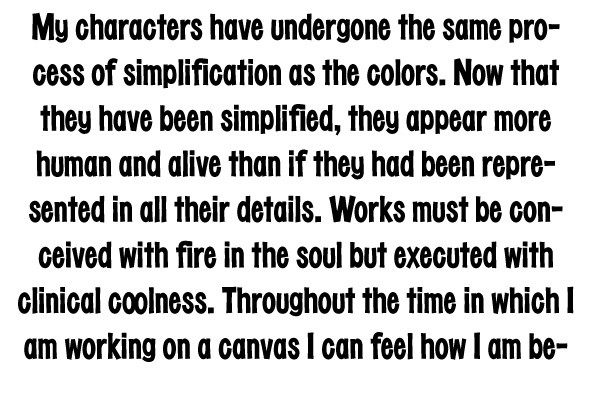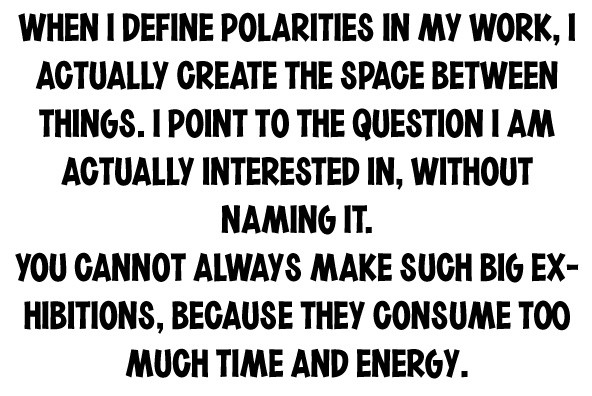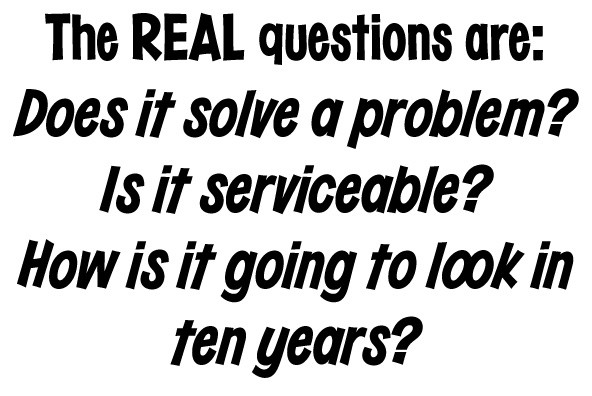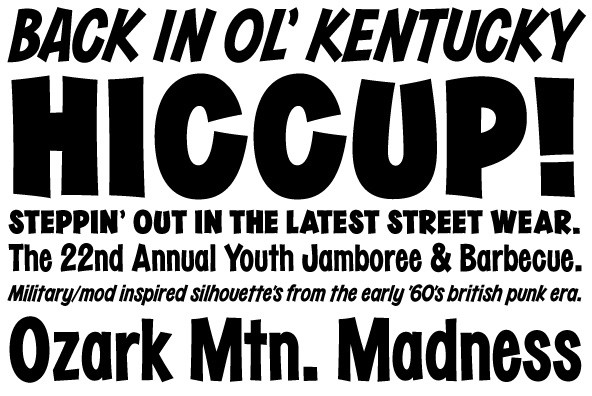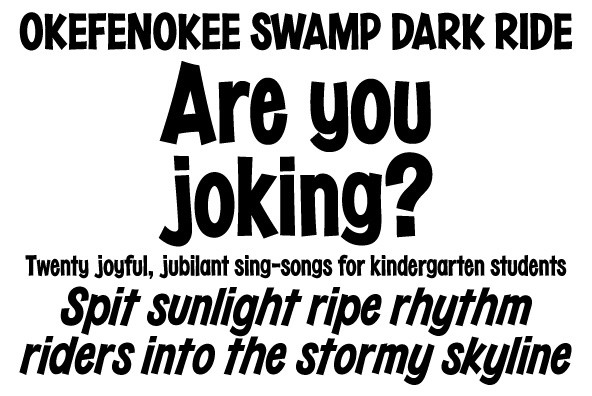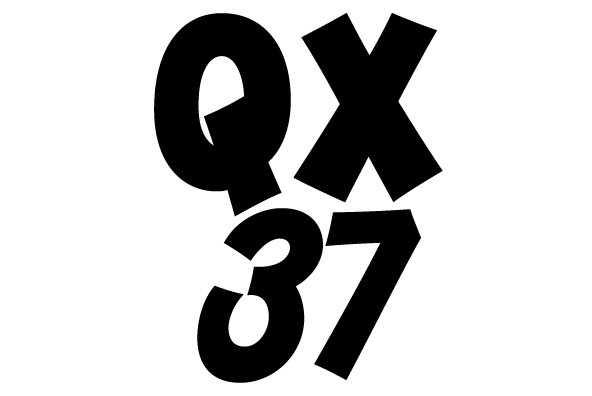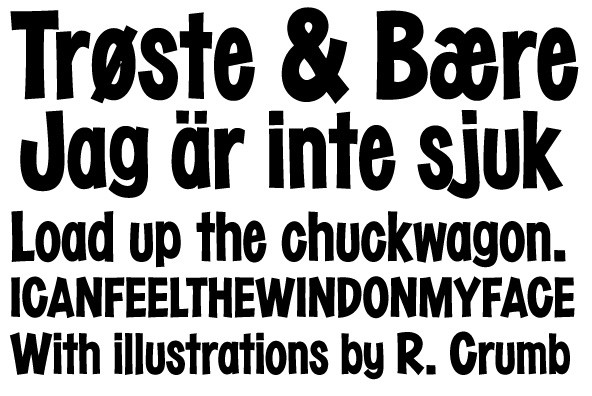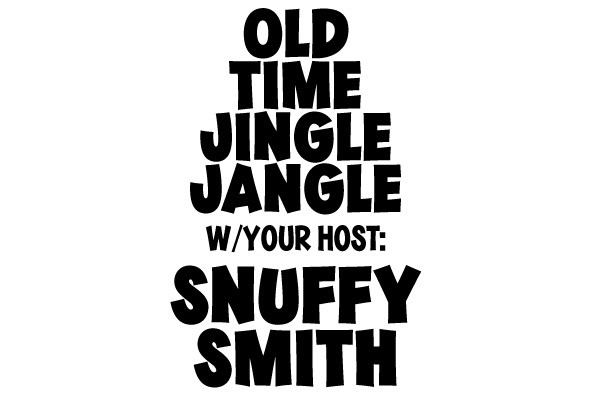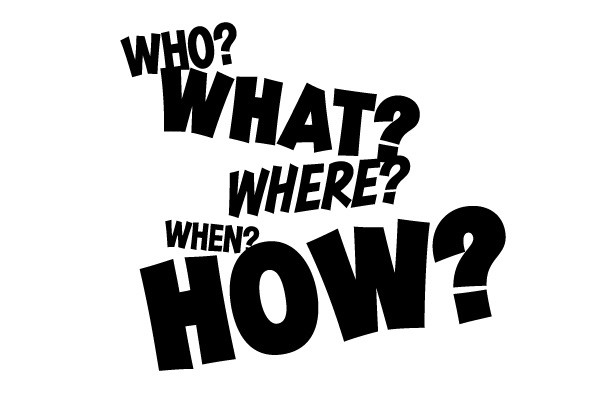
Foundry: Very Good Fonts
Cuckoo Fast was first seen in 1988 (with Cuckoo and Cuckoo Fat) when I painted on a record shop's window. Since then this hand lettered font has been there and done that. Cuckoo Fast was hand drawn on an angle, not software slanted. It has a character all its own, giving a sense of speed, urgency, or bargains whenever it is applied.
Cuckoo Fat was first seen in 1988 when I painted it on a record shop's window. Since then this hand lettered font has been there and done that. Cuckoo Fat is a loud and proud, classic and informal display font designed to work well on any job.